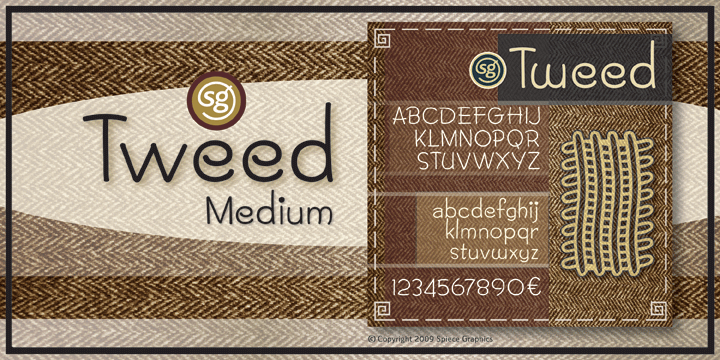
The Tweed SG Font is perfect for various design applications including luxury fashion branding, British heritage marketing, traditional menswear logos, premium textile advertising, classic gentleman's club signage, vintage whiskey labels, upscale tailor shop graphics, and sophisticated lifestyle publications. This refined typeface works exceptionally well for brands celebrating timeless elegance and projects requiring distinguished British sophistication.
What makes Tweed SG Font exciting is its distinguished and aristocratic character that instantly evokes the refined elegance of British heritage and classic gentlemen's fashion. The font features sophisticated letterforms with traditional craftsmanship and timeless quality that create feelings of prestige, authenticity, and old-world charm. Its elegant styling and distinguished appearance make it perfect for brands that want to establish premium positioning and connect with audiences who appreciate traditional luxury and refined taste.
The Tweed SG Font family includes multiple weights and styles, offering designers flexibility for diverse heritage applications. The family typically consists of regular, bold, light, and condensed variations, along with classic decorative elements and traditional ornaments, providing comprehensive coverage for projects that need both sophistication and authenticity across different luxury contexts.
Whether you're working on heritage fashion brands, premium lifestyle marketing, or traditional luxury campaigns, Tweed SG Font Free Download delivers the distinguished quality and visual sophistication that modern luxury designers seek. The font's tweed-inspired design combined with its excellent readability makes it an essential tool for creating compelling visual communications that embody British elegance and celebrate the timeless appeal of classic sophistication.